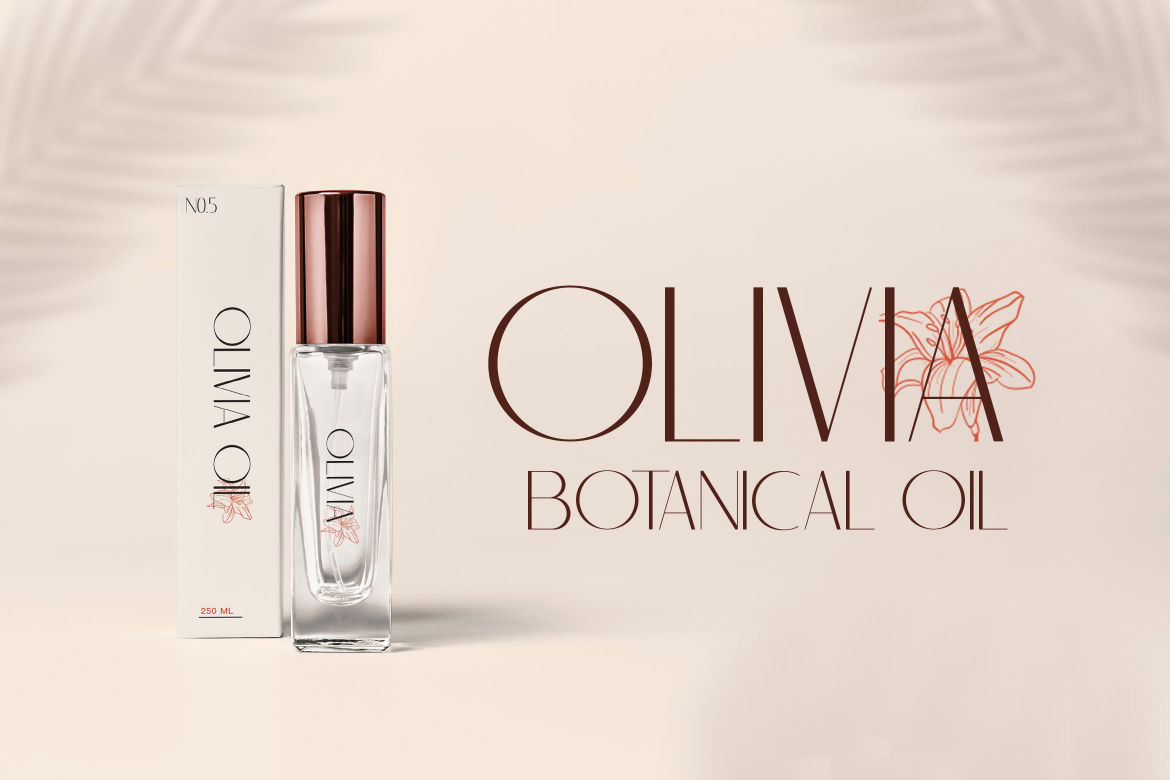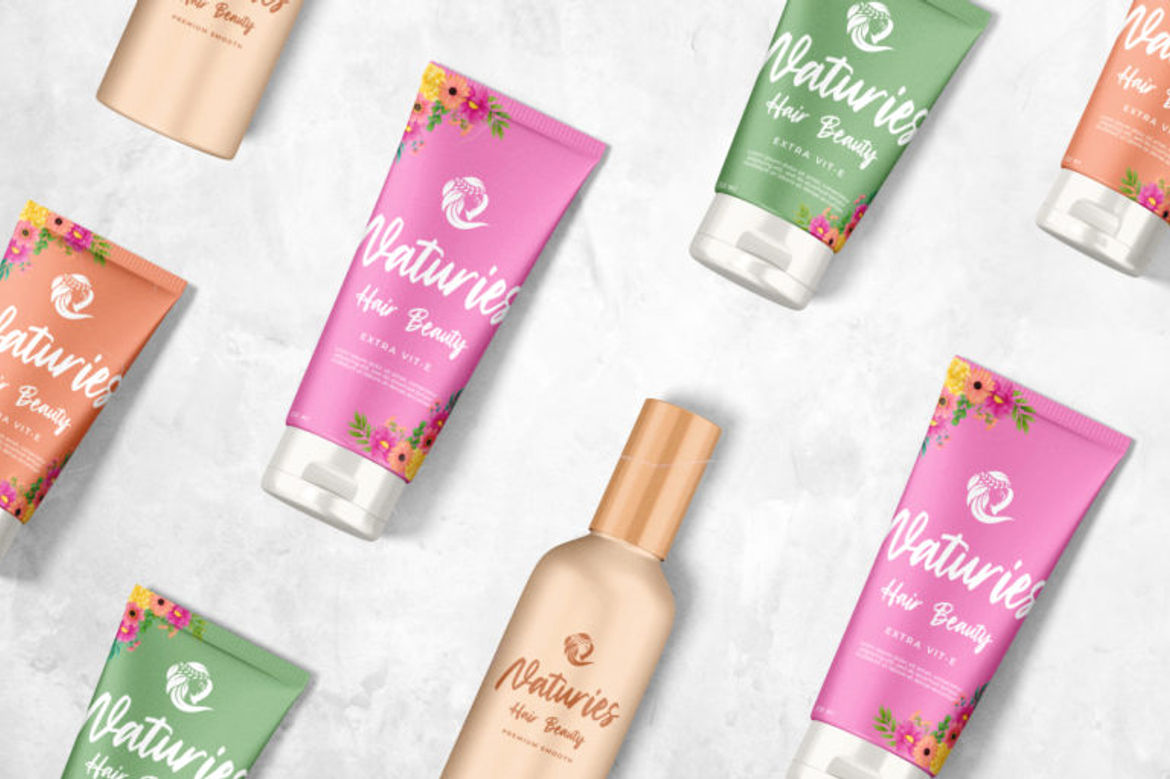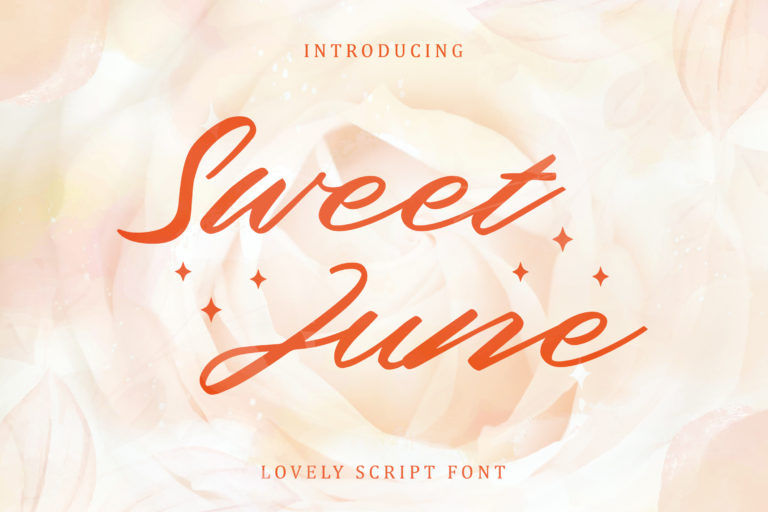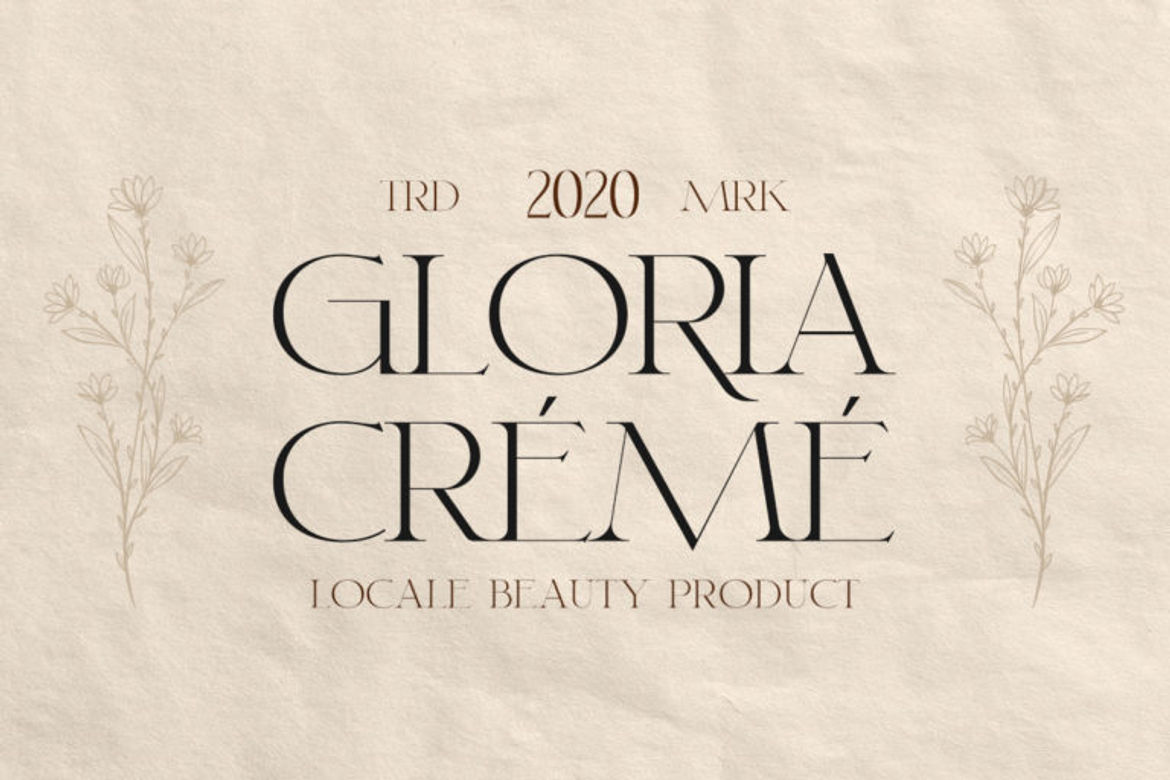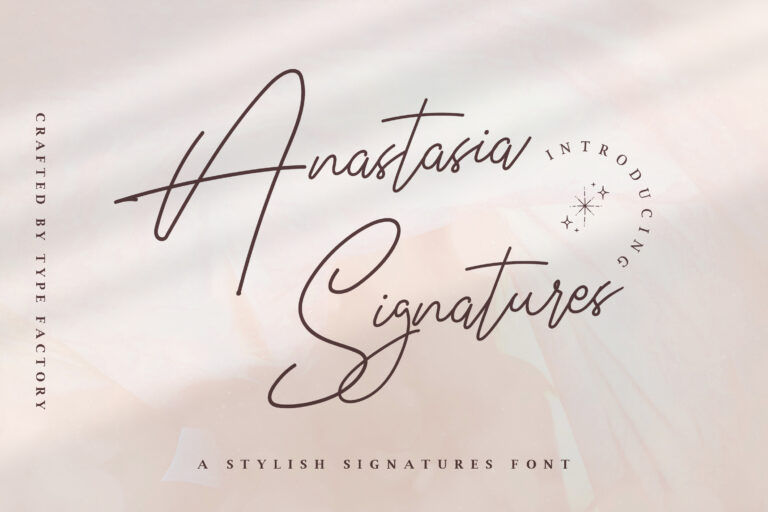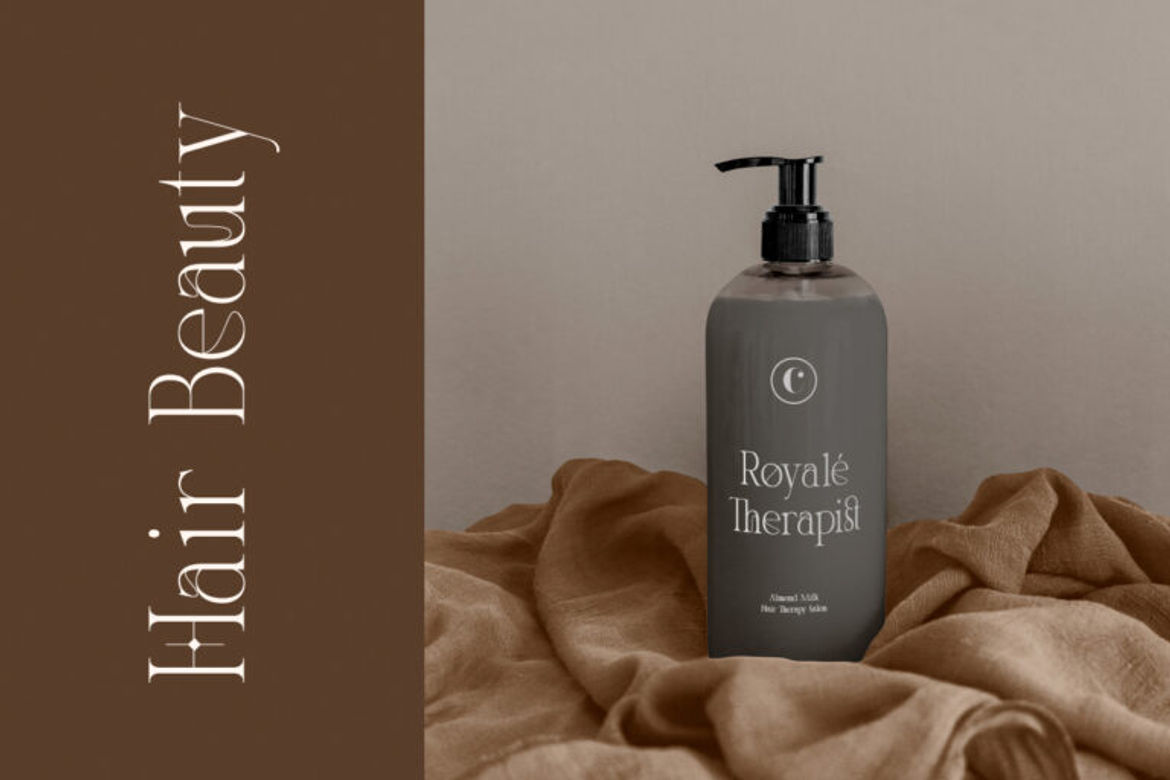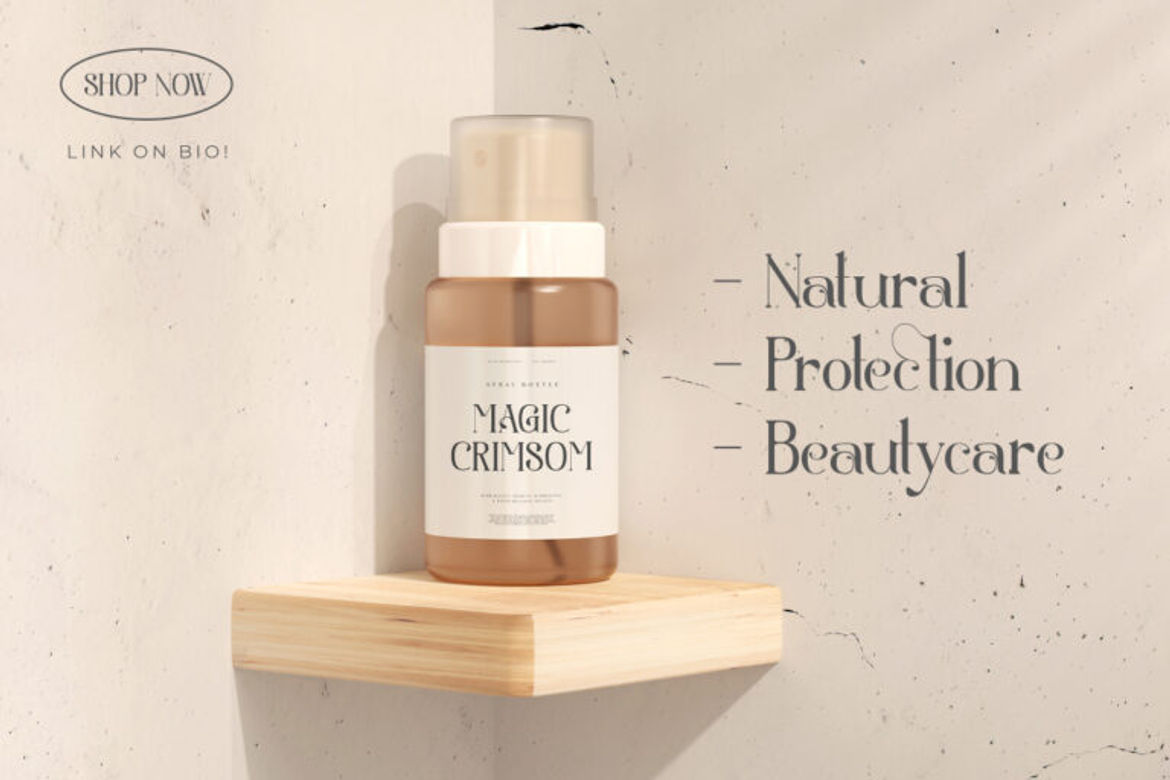
The Top 10 Best-Looking Fonts For Skincare and Beauty Products
The way a company brands itself is important to both the creator and consumer. Humans can’t help but be drawn to pretty aesthetically pleasing design elements. That’s why setting up the branding of your beauty shop requires careful consideration, from your web design to product photography to aesthetics fonts you use, you want it to look as gorgeous as possible. In this blog, we’ll give you the top ten best-looking fonts for your skincare and beauty products, ones that will do your merchandise justice and create a clean, polished, and attractive brand that will lead customers to make purchases from your business.
Marsela
Skincare Mockup with beautiful font
If you’re looking for chic fonts for skincare, the Marsela is perfect. It’s one of the more graceful and traditional fonts, while still being current. The Marsela is versatile and works for a variety of skincare and beauty products, but in our opinion, it is best suited for beauty products that are aimed at a younger audience because of how sweet and subtle it is.
Aesthetic
Aesthetic Font for Beauty and Skincare Product
Aesthetic is modern serif beauty font that has all the bright fun you need for your website or product descriptions, while still being minimalist and understated. It’s got a kind of alternative look to it and while it can be used for anything, we feel it works perfectly for all-natural beauty and skincare products.
Hara
Hara is a font that’s lovely and classic, with an old Hollywood glamour vibe. This modern serif font gives off the essence of the past and is sure to elevate all of your beauty and skincare products. Hara makes for a lovely Webdesign font that could be featured on your website’s homepage, business cards, or anything else you can imagine!
Anastasia Signature
The Anastasia Signature font is great for branding products that have a fun bubbly nature to them. It looks beautiful and has been designed to have a personalized handwritten look to it. This font would work on a storefront, website, or even as a newsletter to your customers.
Bayleigh
The Bayleigh font is another signature font, one that is slightly more mature and clean cut. For beauty brands that are trying to distinguish themselves from others, using the Bayleigh font is great because while it’s stylish, it’s very legible so as not to distract from the products.
Sorreal
Sorreal is a font that’s friendly, cute, and sweet. Sorreal is a neatly outlined display font that works for logos, store postcards, headings, labels, and websites. It almost has a tropical nature about it, which works really well for brands that sell products with a beachy, island vibe.
Classy
Classy is just that, classy. It’s a modern serif font, that is all uppercase without being overly formal or stiffy. It has a minimalistic feel that makes it highly versatile and could work with any skincare or beauty brand that wants to keep their company’s branding design simple, without being boring. It’s sure to brighten up your branding and give the air of natural, unassuming, authentic, and genuine beauty.
Sweet June
Sweet June is a gorgeous cursive script font that brings a lyrical elegance to all beauty and skincare brands. It features a natural writing style that is legible and easily read. We think this works wonderfully for companies who have high-end products but want to remain relatable.
Avoda
Typography for essential oil
Avoda is a modern san serif font and is graceful while being bold but not overbearing. This font is lovely for any brand that wants to elevate the look of the company. Avoda has a nice mix of a classic old typewriting style and a fresh current feel. This font would work for almost every skincare and beauty company but would be incredible for a softer, feminine brand.
Home to Rome
The Home to Rome font is ideal for beauty brands because it has a brushed refinement that is all style and all beauty. Home to Rome is a script font that is timeless and will work for your brand for years to come. It’s thicker and has a slightly bolder look than some other fonts, which is why it’s one of the most popular fonts for companies!